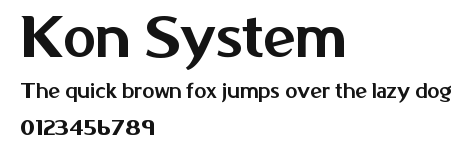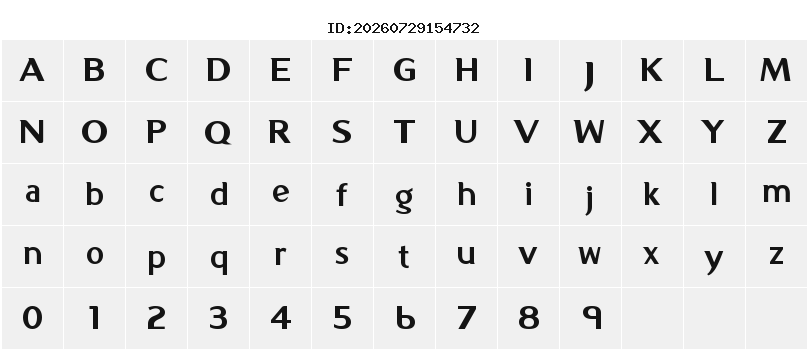
Kon System Preview
• Font Name: Kon System
• Font Style: Gras
• Full Font Name: Kon System
• Character Count: 241
About Kon System.ttf
Kon System.ttf is a modern, elegant sans-serif font designed for ultimate readability and visual harmony. Perfect for branding, headlines, web design, and print materials.